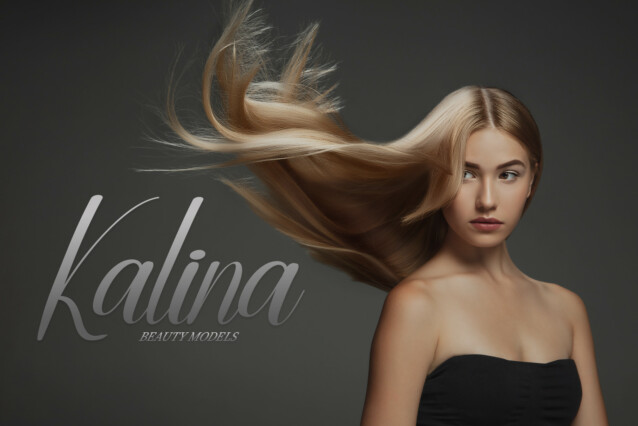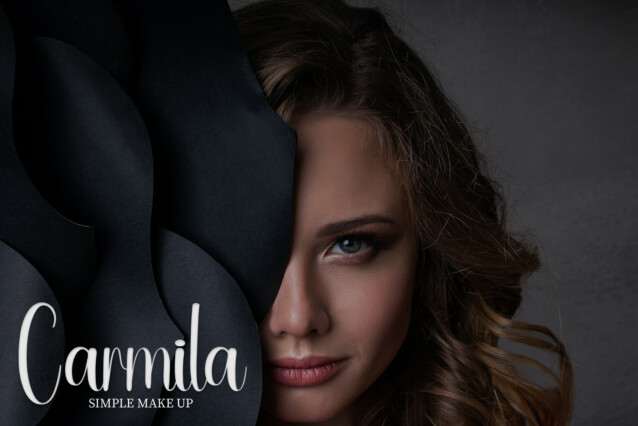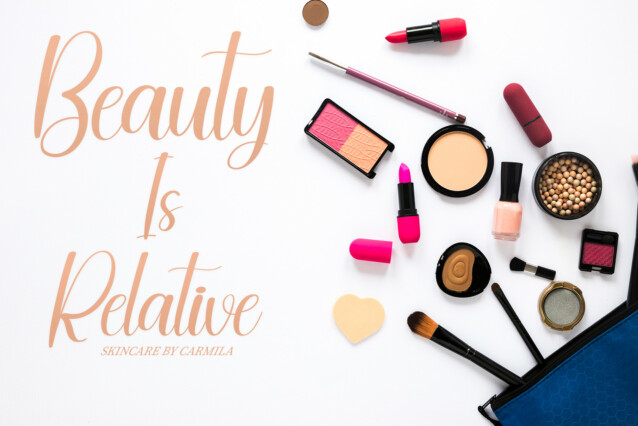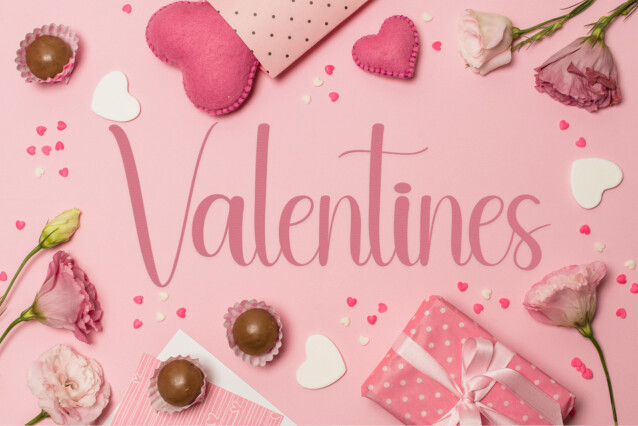
Amirese Script Font is a sweet and friendly handwritten display font. Cute and fun, this font is ideal for writing wedding invitations, cards, or any other design that might need a playful touch!